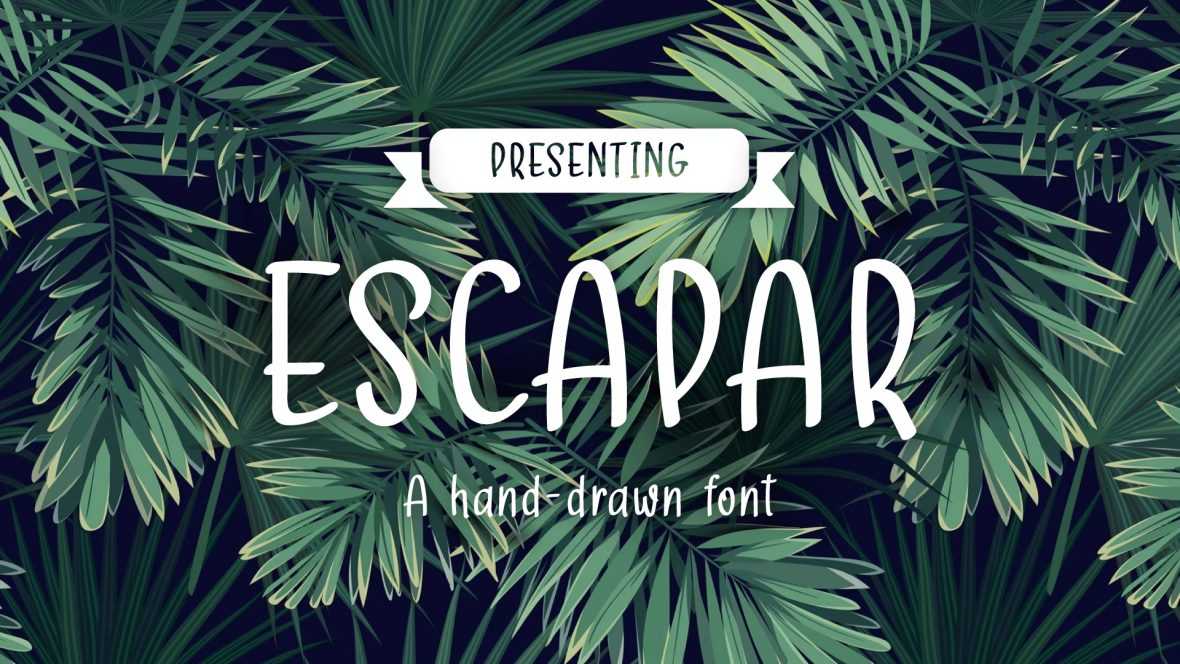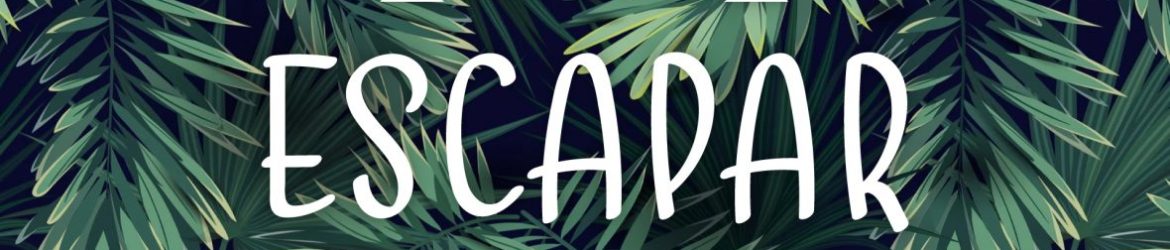
Escapar Font by GraphicsFamily This is an absolutely free hand crafted font created and offered by GraphicsFamily. Escapar is a captivating font which can impress your audience breaking the stereotypes. It is designed very carefully to be simple and attractive. Download, type and personalize it in your own style using some nice effects. !IMPORTANT You